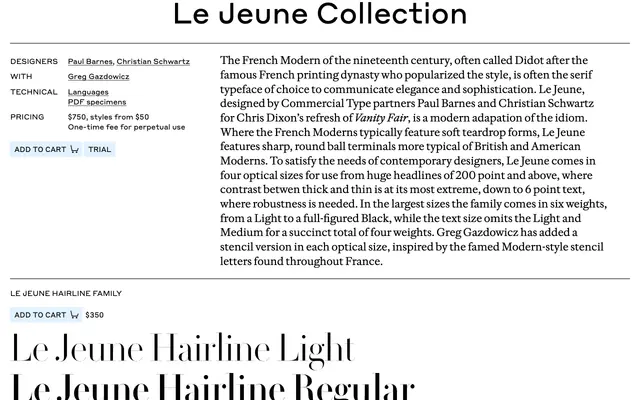
Le Jeune
Commercial Type · Paul Barnes, Christian Schwartz
A modern Didone for fashion and editorial, in four optical sizes from text up to poster, with a stencil variant inspired by French shop lettering.
A Modern serif designed by Paul Barnes and Christian Schwartz for Chris Dixon's redesign of Vanity Fair, with Greg Gazdowicz on the stencil cuts. Le Jeune updates the French Modern Didone tradition with sharper, rounder ball terminals borrowed from British and American Moderns. Four optical sizes, Text, Deck, Poster and Hairline, span up to six weights from Light to Black with matching italics, alongside a stencil cut at each size inspired by classic French shop lettering. The default home is fashion, beauty and high-end editorial mastheads.
Commercial Type describe Le Jeune as a contemporary French Modern in the Didot tradition, designed by Paul Barnes and Christian Schwartz for Chris Dixon's refresh of Vanity Fair, with sharp British and American ball terminals rather than soft French teardrops, across four optical sizes.